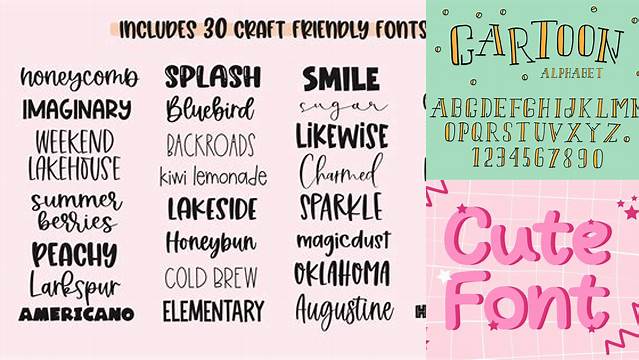
Cute In Fonts: 30+ Unique Typography Ideas
Hey guys! Ever wondered how much a simple word like "cute" can change just by tweaking its font? Well, you're in the right place! We're diving deep into the adorable world of typography and exploring over 30 different ways to write "cute.” Whether you're designing a logo, sprucing up your social media, or just love fonts, get ready for some serious inspiration! Let’s jump in and see how versatile this little word can be.
1. Cute in Script Fonts
Ah, script fonts! They’re like the handwritten notes of the font world – elegant, personal, and often, super cute. When we talk about the word “cute” in script fonts, we're thinking flowing lines, delicate curves, and a touch of whimsy. Script fonts can instantly make the word feel more approachable and endearing. Imagine using a script font for a baby shower invitation or a logo for a handmade crafts business. The possibilities are endless! Think about the little loops and swirls that can turn a simple word into a visual treat. Different script fonts offer different vibes too. Some are super formal and swirly, perfect for a fancy touch, while others are more relaxed and playful, ideal for something light-hearted and fun. For instance, a calligraphy-inspired script can give the word “cute” an air of sophistication, while a bouncy, brush-style script can make it feel youthful and energetic. The key is to match the script font to the overall mood and message you're going for. Experiment with different thicknesses and letter connections to see what resonates best. A thicker script can give the word more weight and presence, while a thinner script can make it feel more delicate and airy. And don’t forget the little details! The way the letters connect, the length of the ascenders and descenders, and even the presence of swashes can all contribute to the overall cuteness factor. Script fonts are your go-to for adding a personal and charming touch to the word “cute.”
2. Cute in Sans-Serif Fonts
Let's switch gears to the world of sans-serif fonts! These fonts are the cool, modern cousins of the serif fonts – clean, straightforward, and incredibly versatile. When you write the word “cute” in a sans-serif font, you're often aiming for a more contemporary and minimalist feel. Think of logos for tech startups, branding for modern baby products, or even website headings that need to be both readable and stylish. Sans-serif fonts are all about simplicity, which can actually enhance the cuteness factor in certain contexts. Imagine a rounded sans-serif font – the soft curves can make the word feel friendly and approachable, perfect for a brand that wants to convey warmth and openness. On the other hand, a bolder, more geometric sans-serif can give “cute” a playful yet modern edge, ideal for a children’s clothing line or a toy store. The beauty of sans-serif fonts lies in their clarity and legibility. They work well in a variety of sizes and formats, making them a reliable choice for both print and digital applications. When choosing a sans-serif font for “cute,” consider the weight and spacing of the letters. A lighter weight can make the word feel delicate and airy, while a heavier weight can give it more presence and impact. The spacing between the letters, also known as kerning, can also make a big difference. Too little spacing can make the word feel cramped, while too much spacing can make it feel disjointed. Experiment with different options to find the perfect balance. Don’t be afraid to get creative with uppercase and lowercase letters too! Mixing them up can add a touch of whimsy and personality to the word. Sans-serif fonts are a fantastic way to make the word “cute” feel modern, approachable, and effortlessly stylish.
3. Cute in Serif Fonts
Now, let's explore the classic elegance of serif fonts! These fonts are characterized by the little decorative strokes (the serifs) at the end of each letter, giving them a timeless and sophisticated vibe. Writing the word “cute” in a serif font might seem like a surprising choice, but it can actually add a unique charm and character. Think of vintage-inspired designs, classic children’s book illustrations, or even a touch of old-world cuteness in a modern context. Serif fonts can bring a sense of history and tradition to the word, making it feel both familiar and special. Imagine a delicate serif font with thin lines and subtle serifs – it can give “cute” a refined and graceful look. On the other hand, a bolder serif font with more pronounced serifs can make the word feel sturdy and reliable, while still retaining its inherent cuteness. The key is to choose a serif font that complements the overall tone and style of your design. For example, a playful, slightly quirky serif font can be perfect for a children’s brand, while a more formal serif font might be better suited for a sophisticated and elegant design. When working with serif fonts, pay attention to the details. The size and shape of the serifs, the contrast between thick and thin strokes, and the overall balance of the letters all contribute to the final look. Experiment with different weights and styles to see what works best for the word “cute.” Consider using italic or bold versions of the font to add emphasis or create visual interest. And don’t forget to play with kerning and letter spacing to ensure the word is legible and visually appealing. Serif fonts offer a wonderful way to add a touch of classic charm and sophistication to the word “cute,” making it feel both timeless and endearing.
4. Cute in Display Fonts
Okay, guys, let’s get funky with display fonts! These are the rock stars of the font world – bold, expressive, and designed to grab attention. When we talk about writing “cute” in display fonts, we’re thinking outside the box. These fonts are all about making a statement, so they’re perfect for logos, posters, headlines, and anything else where you want the word to really pop. Think of playful bubble letters, whimsical hand-drawn styles, or even quirky vintage-inspired designs. Display fonts are where cuteness can really shine in unexpected ways. Imagine a chunky, rounded display font that makes the word feel soft and cuddly, or a quirky, hand-lettered font that adds a personal and playful touch. The possibilities are endless! The key to using display fonts effectively is to choose one that matches the overall mood and message you’re trying to convey. A super whimsical font might be perfect for a children’s brand, while a more stylized and modern display font could work well for a trendy boutique. When selecting a display font for “cute,” consider the shape and style of the letters. Are they rounded and soft, or angular and bold? Do they have any unique details or embellishments? The more distinctive the font, the more impact it will have. However, it’s also important to make sure the font is still legible, especially if you’re using it in a smaller size. Experiment with different colors and effects to enhance the cuteness factor even further. A bright, cheerful color can make the word feel even more playful, while a subtle gradient or shadow can add depth and dimension. And don’t be afraid to mix and match display fonts with other font styles to create a unique and eye-catching design. Display fonts are your secret weapon for making the word “cute” truly unforgettable.
5. Cute in Handwritten Fonts
Let's dive into the cozy world of handwritten fonts! These fonts bring a personal and authentic touch to any design, making them perfect for adding a dose of cuteness. When you write the word “cute” in a handwritten font, you’re instantly adding a sense of warmth and approachability. Think of greeting cards, personalized gifts, or even a blog header that feels like it was written just for you. Handwritten fonts are all about capturing the imperfections and quirks that make handwriting so charming. Imagine a loopy, cursive-style handwritten font that makes the word feel playful and whimsical, or a more casual, print-style handwritten font that gives it a relaxed and friendly vibe. The options are endless! The beauty of handwritten fonts is that they can convey a range of emotions and styles. Some handwritten fonts are elegant and refined, perfect for a sophisticated touch, while others are more messy and spontaneous, ideal for a casual and fun design. When choosing a handwritten font for “cute,” consider the overall tone and message you want to communicate. Do you want the word to feel sweet and innocent, or playful and energetic? The font you choose can make all the difference. Experiment with different thicknesses and styles of handwritten fonts to see what resonates best. A thicker font can give the word more weight and presence, while a thinner font can make it feel more delicate and airy. Pay attention to the spacing between the letters and the overall flow of the word. A handwritten font should feel natural and effortless, so make sure the letters connect smoothly and the spacing is consistent. Don’t be afraid to add your own personal touch to the word “cute” by using a handwritten font. It’s a fantastic way to make your design feel more authentic and memorable.